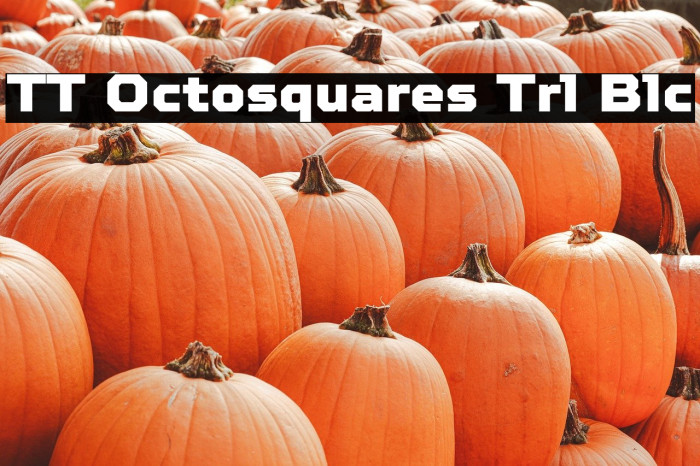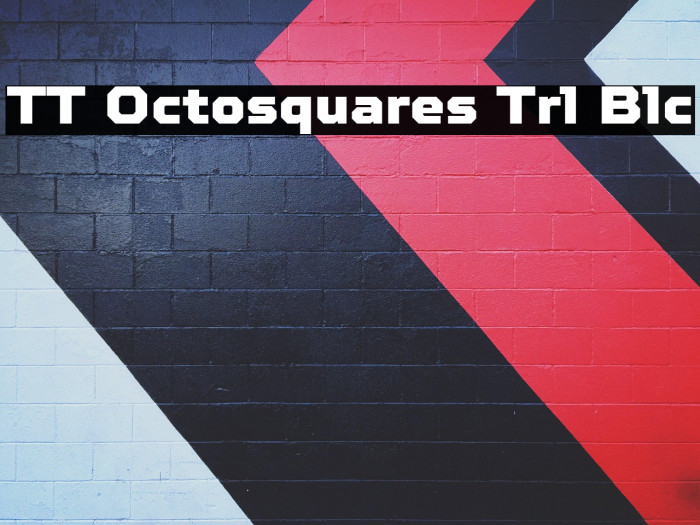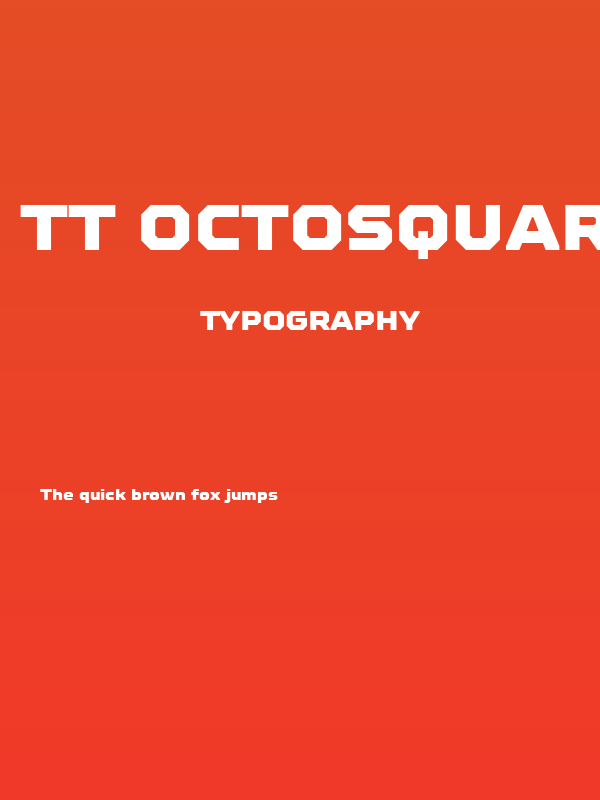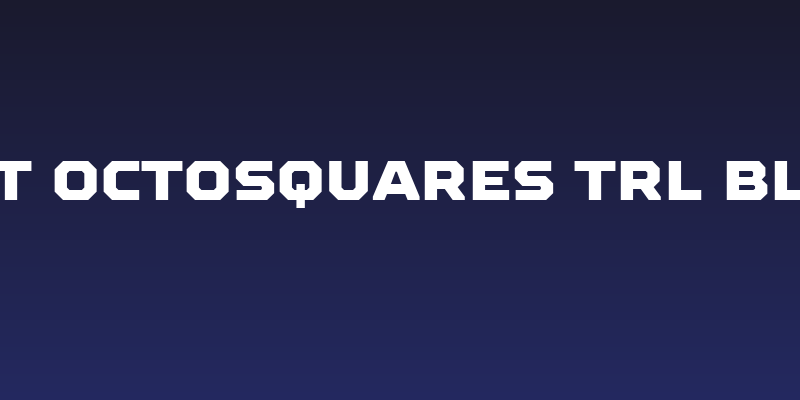
TT Octosquares Trl Blc Font
TT Octosquares Trl Blc Description
This font features a bold and geometric design with a strong emphasis on angular shapes and straight lines. The characters are constructed with a blocky appearance, giving them a robust and sturdy look. The uppercase and lowercase letters maintain a consistent style, with sharp edges and a uniform thickness throughout. The numerals and special characters follow the same geometric theme, ensuring a cohesive appearance across all glyphs. The overall design is modern and striking, suitable for making a bold statement in various design contexts.
| Proposed Projects | Ideal for branding, posters, headlines, and any design requiring a strong, modern aesthetic. |